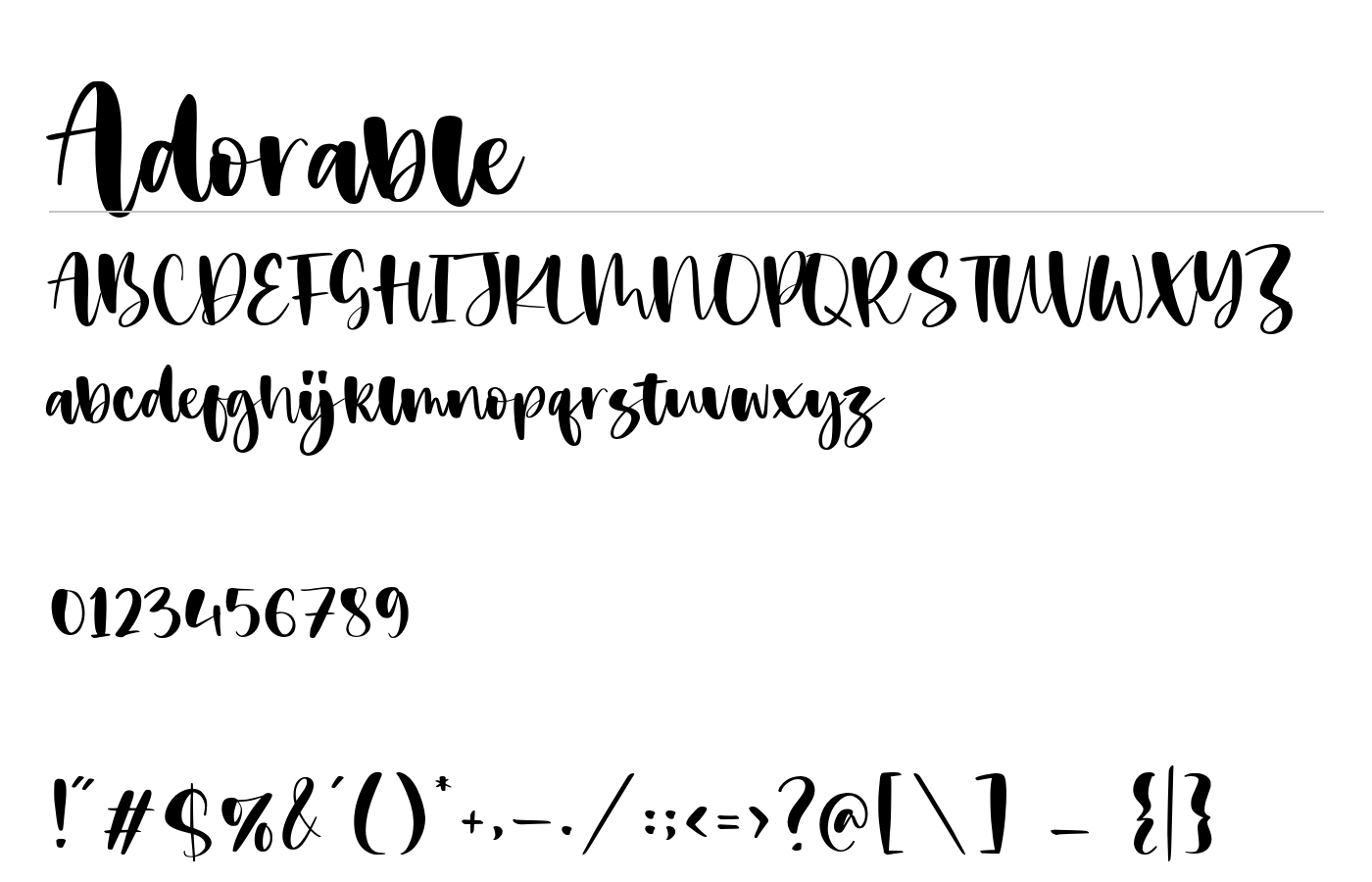
Adorable Font is a lively and charming script typeface with a bold weight and playful, brush-like strokes that create a warm, inviting feel. Its casual, hand-lettered style makes it perfect for projects that want to convey friendliness and creativity, such as branding, invitations, and social media graphics. This font’s dynamic curves and slightly irregular shapes add a personal touch, making it ideal for eye-catching headlines and decorative uses.
Adorable Font
About Adorable Font
| Font family | Adorable Font |
| Designer | Letterative Studio |